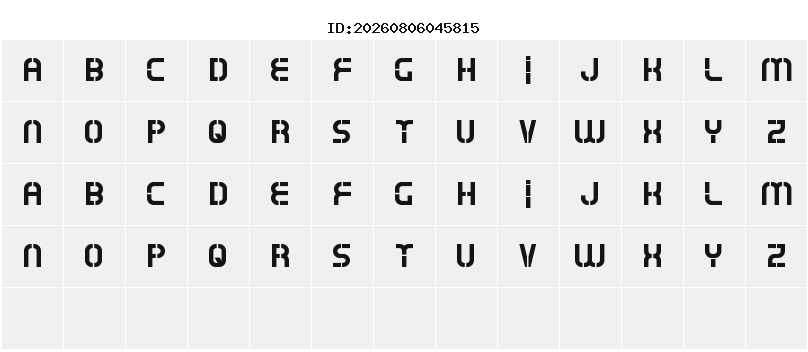
Oxin  Preview
• Font Name: Oxin
• Font ID: Oxin Army:Version 1.00
• Full Font Name: Oxin Army
• Version: Version 1.00 January 2, 2013, initial release
• PostScript Name: OxinArmy
• Copyright: Oxin Army © (By Carlos Matteoli). 2013. All Rights Reserved
• Designer: Carlos Matteoli
About Oxin .ttf
Oxin .ttf is a modern, elegant sans-serif font designed for ultimate readability and visual harmony. Perfect for branding, headlines, web design, and print materials.